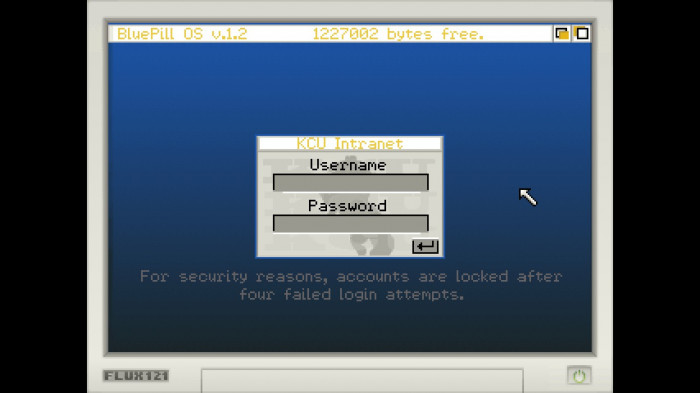
• Recreation of the font used for most PC interface texts in Kathy Rain and Kathy Rain: Director’s Cut. Almost all glyphs are taken straight from the game, except for some punctuation, as well as ampersand, which in this rendition come from the main font, since I couldn’t find any use of those glyphs within this font in the game.